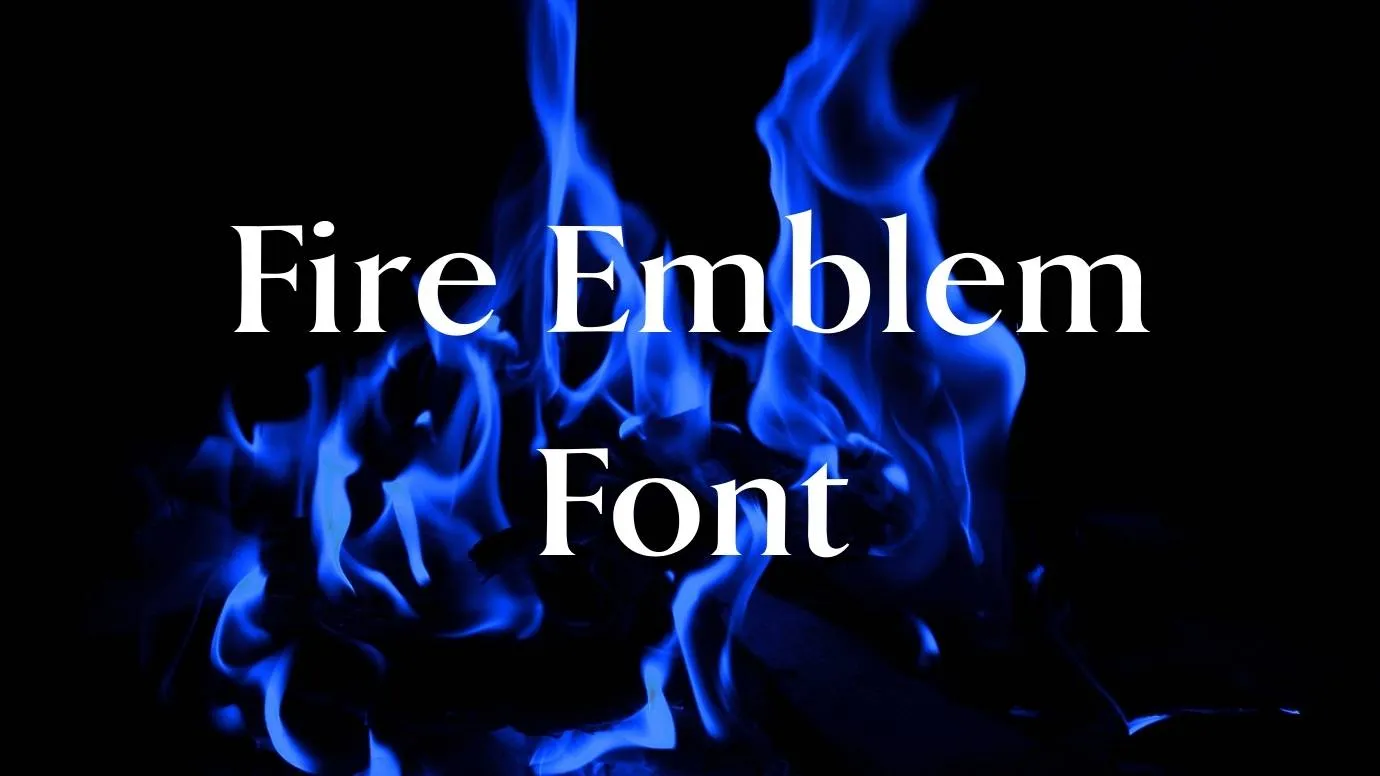
Fire Emblem Font is a new typeface that was developed by a brilliant and well-known designer known as Famicom. It was released in 1990 and created on the basis of a gaming releasing franchise.
This gives your logo designs and textures a more attractive look. Because it belongs to the serif typeface family it consists of sharp corners. It is also perfect for designing logos and posters of movies and games.
Fire Emblem Font